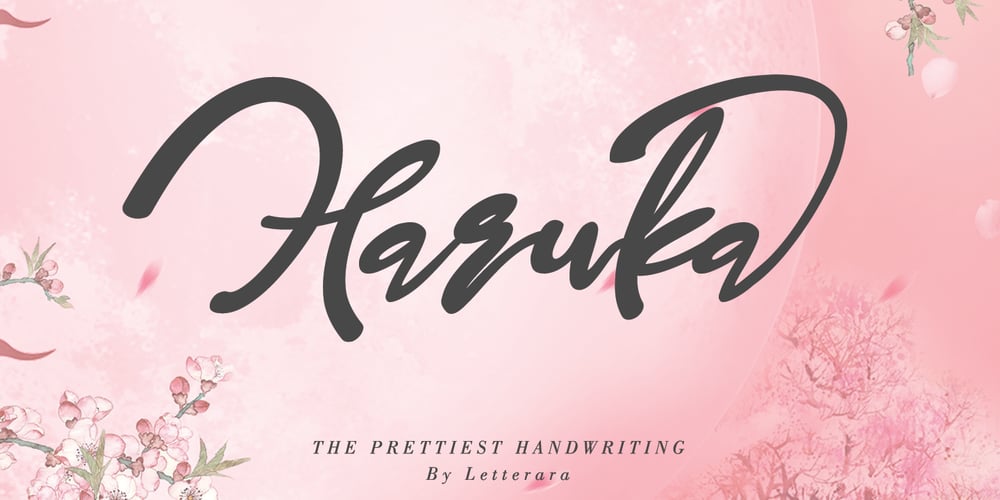
Haruka Font Family was designed by Thomas Aradea and published by Letterara. Haruka contains 2 styles and family package options. Haruka is a unique and bold handwritten font that is inspired by Japanese artistry. It will add an authentic and dynamic touch to a big variety of design projects.